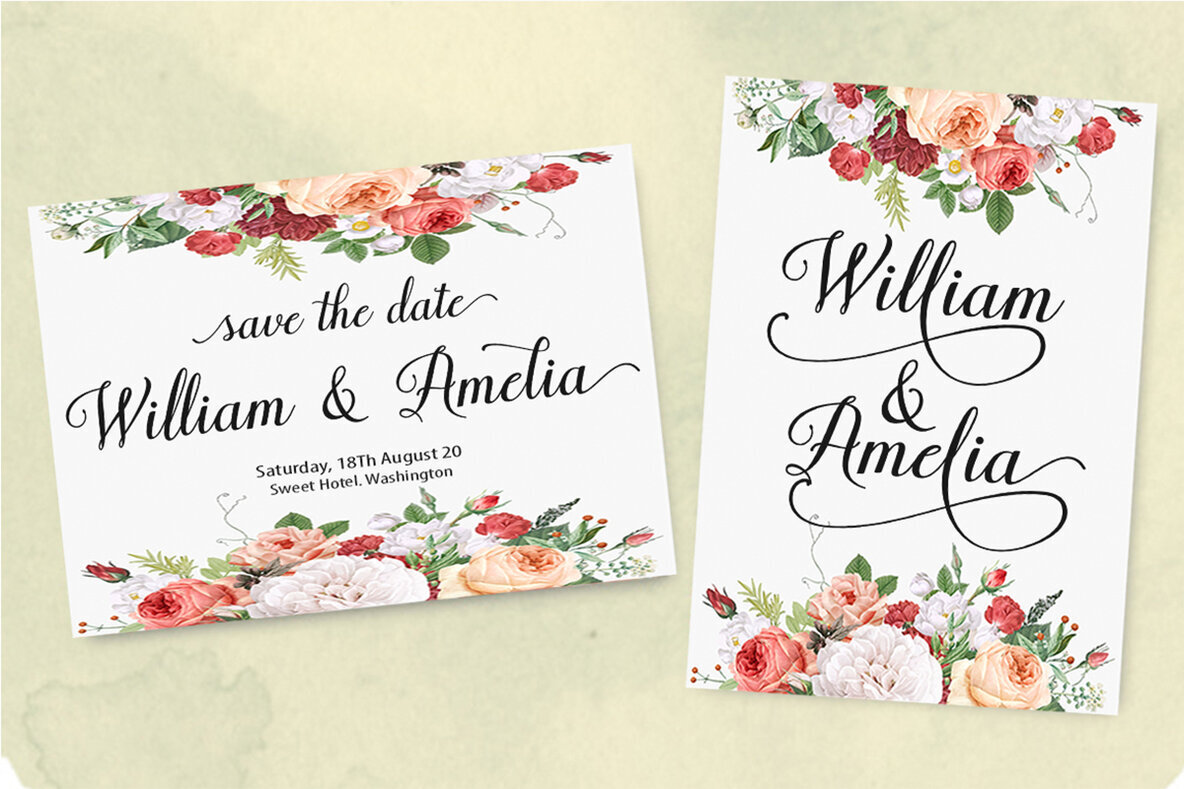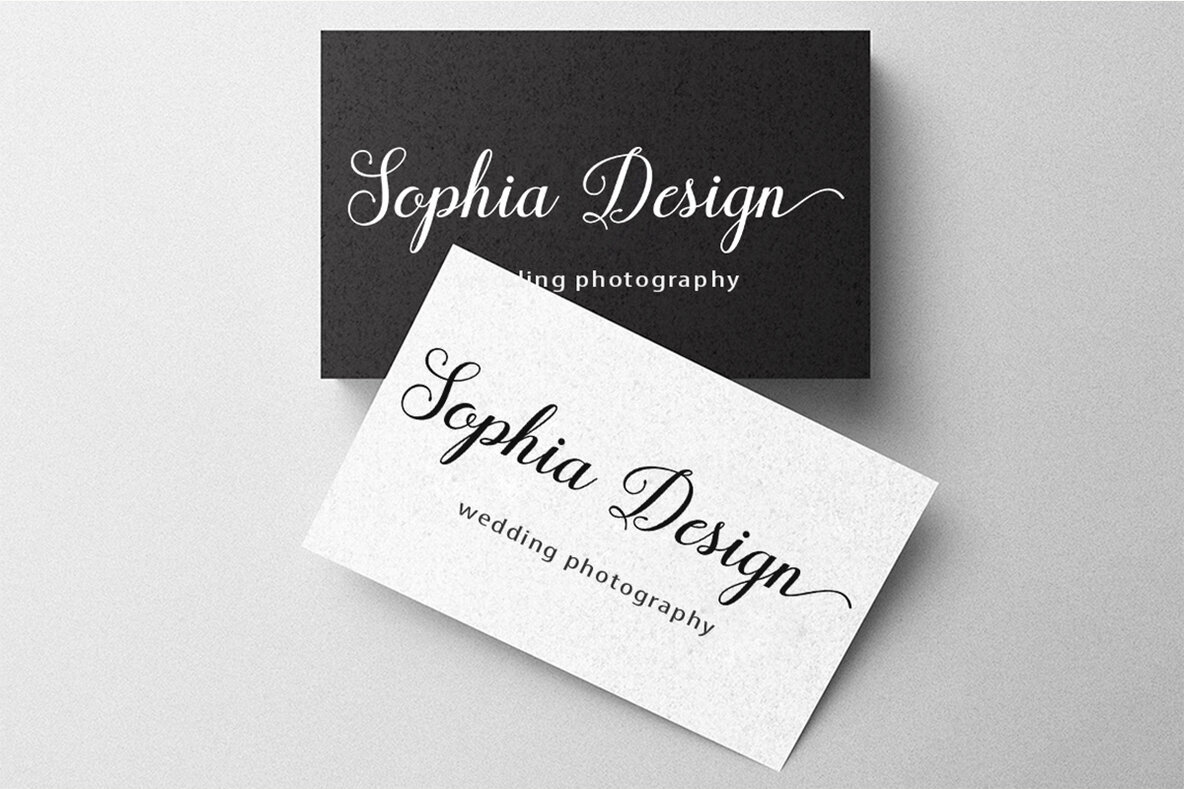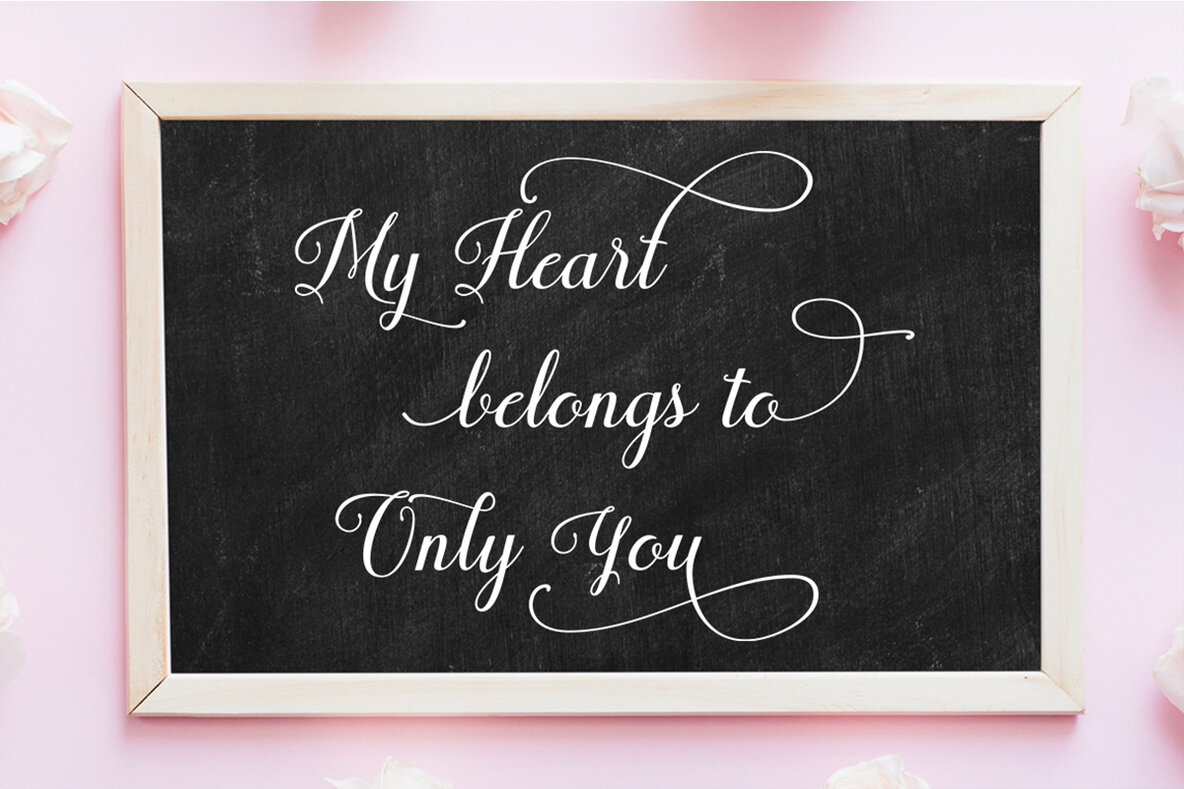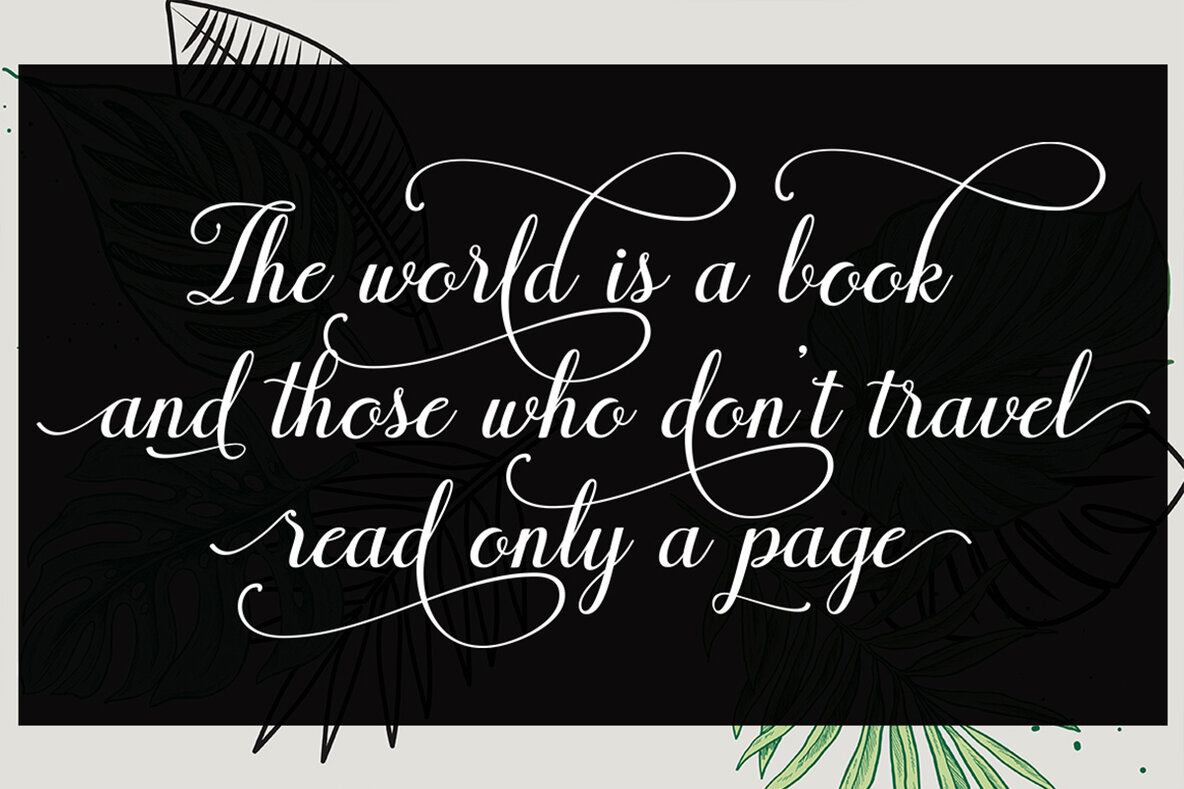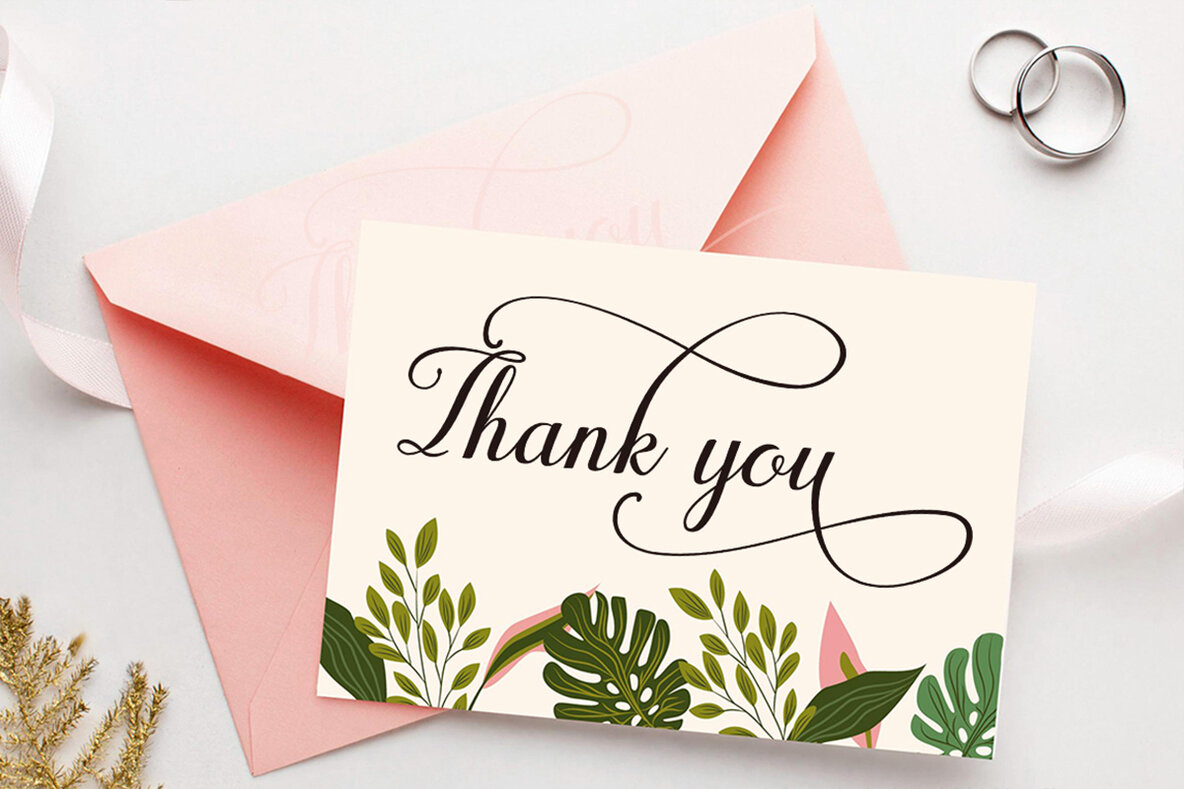
Shiffany Font
Shiffany Regular
Shiffany Script, with its modern allure and irregular baseline, brings a charmingly feminine touch to digital and print design projects. This script font is a delightful choice for wedding invitations, thank you cards, and greeting cards, providing a handwritten feel that resonates with personal warmth. Shiffany Script also excels in branding uses, such as logos and business cards, especially adaptable for ink or watercolour mediums.Shiffany Script: Feminine and Trendy Typeface